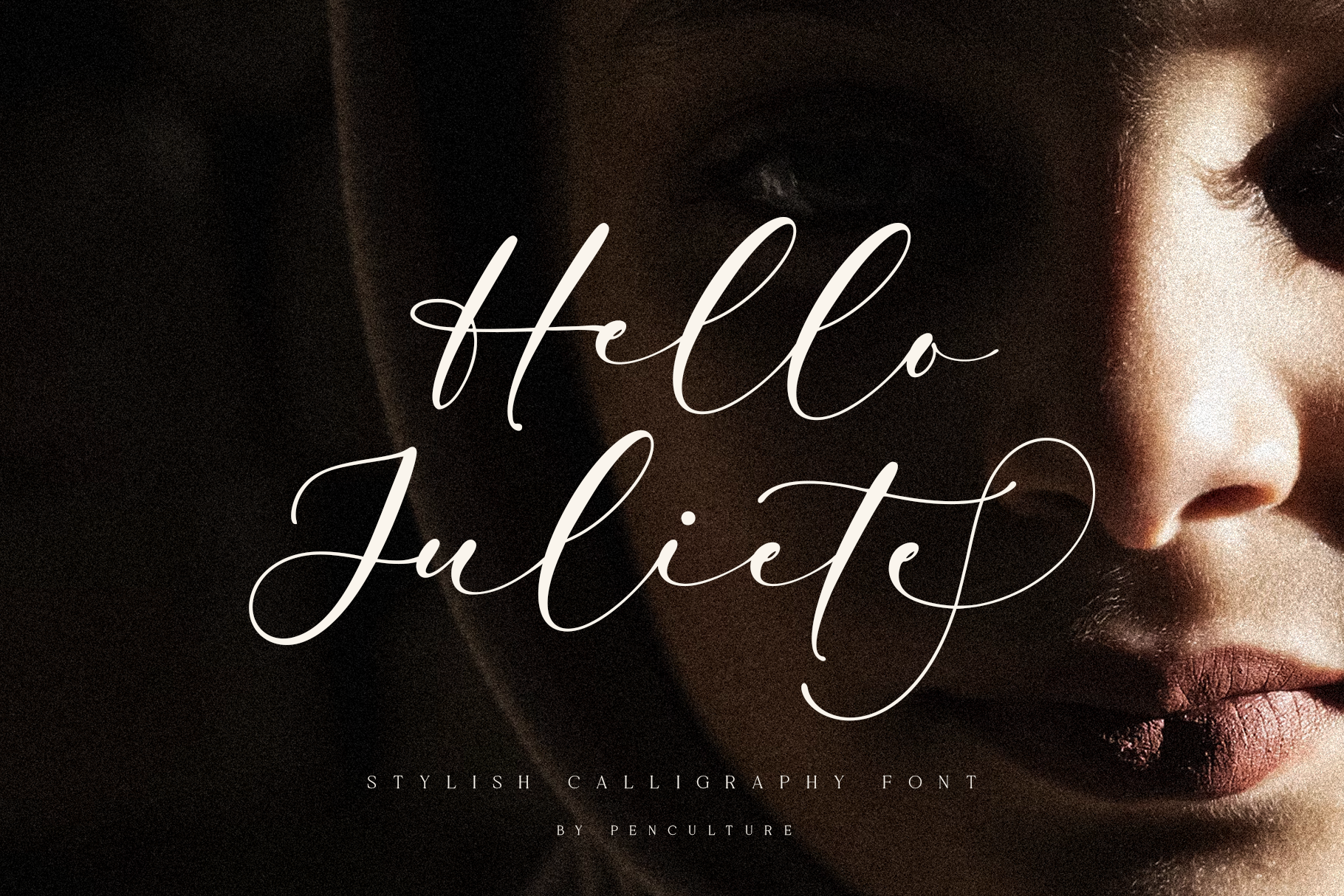
Hello Juliete calligraphy font
Hello Juliete Calligraphy Font
Say hello to Hello Juliete, a clean and elegant calligraphy font designed to bring a touch of sophistication and grace to your projects. With its delicate strokes and refined curves, Hello Juliete exudes an air of timeless beauty, making it the perfect choice for everything from luxury branding to heartfelt wedding invitations.
Hello Juliete comes with carefully crafted ligatures and an impressive collection of 52 stunning stylistic alternates. These features offer endless possibilities to personalize your designs, allowing you to effortlessly create unique and polished typography.
Ideal for branding, stationery, social media graphics, and beyond, Hello Juliete’s charm lies in its balance of classic elegance and modern versatility.